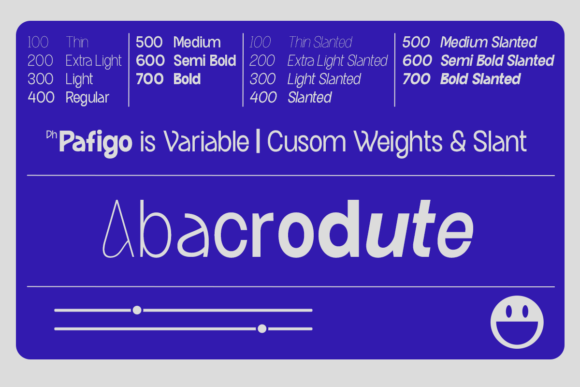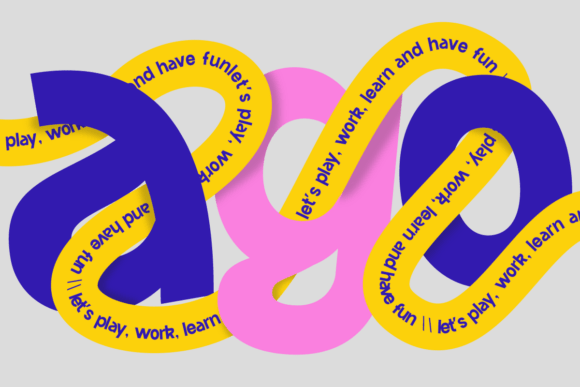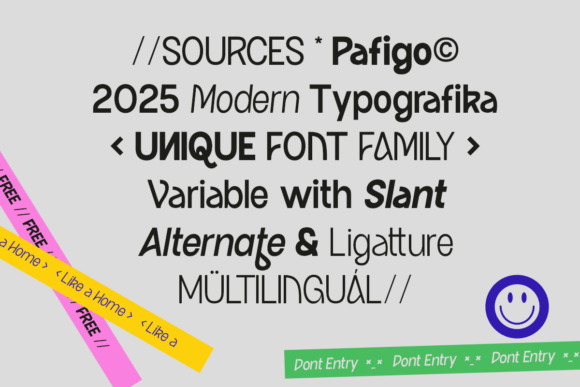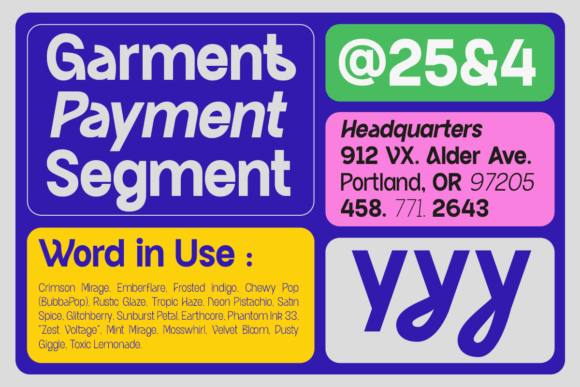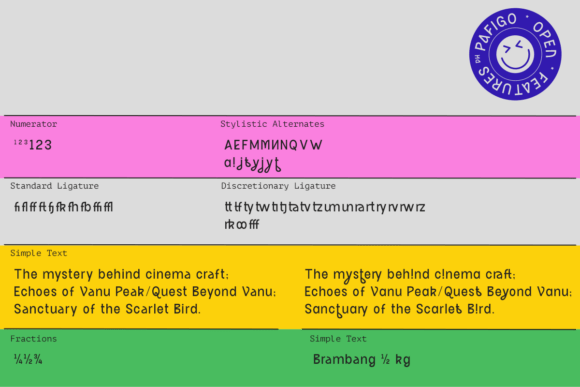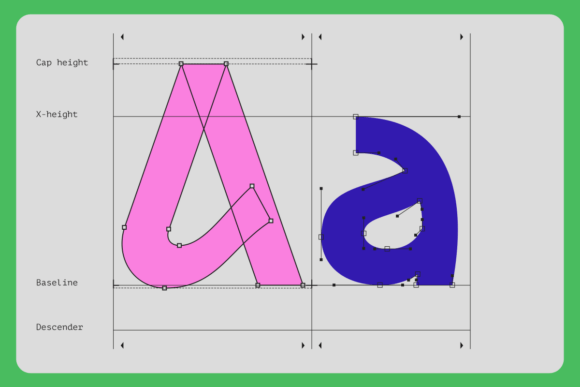
Dh Pafigo Font: A Friendly Sans Typeface for Modern Brands
In the world of typography, finding the perfect font that embodies both modernity and friendliness can be a daunting task. However, Dh Pafigo has emerged as a game-changer, offering a unique blend of geometric structure and approachable tone. This modern sans serif typeface is specifically designed for bold branding, digital content, packaging, and editorial use, making it an ideal choice for designers and crafters looking to elevate their visual identity.
What Makes Dh Pafigo Stand Out?
Dh Pafigo boasts an impressive range of 14 styles and over 48 alternates, providing designers with unparalleled creative control. Its clean, rounded design strikes a perfect balance between clarity and charm, making it perfect for confident and expressive brands. Whether you’re working on lifestyle, tech, or editorial projects, Dh Pafigo’s versatility ensures that your brand’s message is conveyed with precision and style.
Key Features of Dh Pafigo
- Multilingual Support: Dh Pafigo offers extensive language support, making it a fantastic choice for global brands looking to connect with diverse audiences.
- OpenType Features: With advanced OpenType features, Dh Pafigo allows for intricate typographic control, enabling designers to craft unique and captivating text arrangements.
Who Can Benefit from Dh Pafigo?
Dh Pafigo is specifically crafted for brands that aim to project a bold yet approachable image. This includes:
- Lifestyle Brands: For those in the lifestyle sector, Dh Pafigo offers a fresh and vibrant aesthetic that can elevate brand storytelling.
- Tech Companies: Tech brands looking for a modern and clean look will find Dh Pafigo’s geometric structure and friendly tone highly appealing.
- Editorial Designers: With its range of styles and alternates, Dh Pafigo is perfect for editorial projects that require typographic versatility and visual impact.
How to Use Dh Pafigo Effectively
To maximize the potential of Dh Pafigo, consider the following tips:
- Mix and Match Styles: Experiment with different styles and alternates to create visual hierarchy and add depth to your designs.
- Leverage OpenType Features: Take advantage of the font’s OpenType features to add unique touches to your typography.
- Pair with Complementary Fonts: While Dh Pafigo is versatile on its own, pairing it with complementary fonts can further enhance your design’s impact.
Dh Pafigo is more than just a font; it’s a design companion that empowers brands to communicate with confidence and charm. Its blend of modernity, versatility, and friendliness makes it an invaluable asset for designers and crafters aiming to create memorable brand experiences. Whether you’re working on a bold branding campaign, a digital project, or editorial content, Dh Pafigo is poised to become your go-to typeface for projects that demand both style and substance.